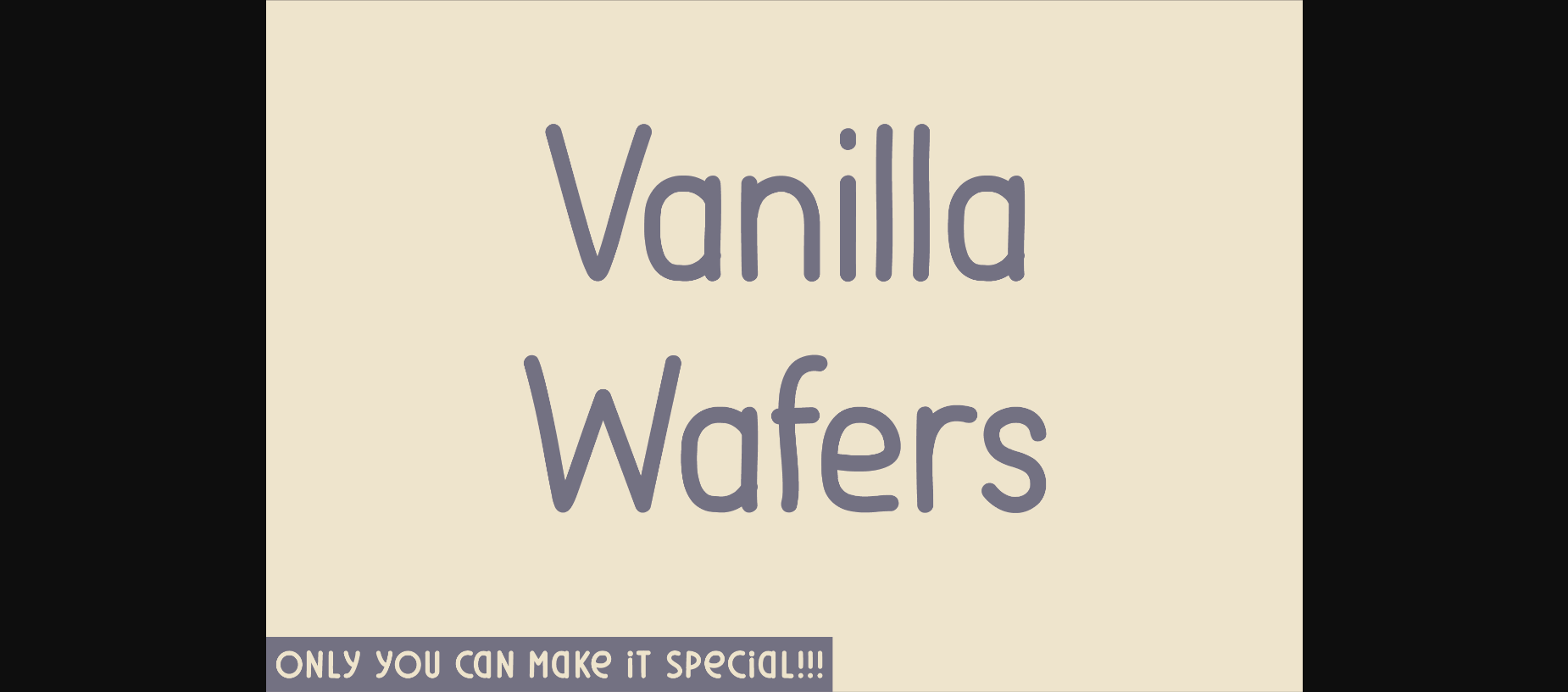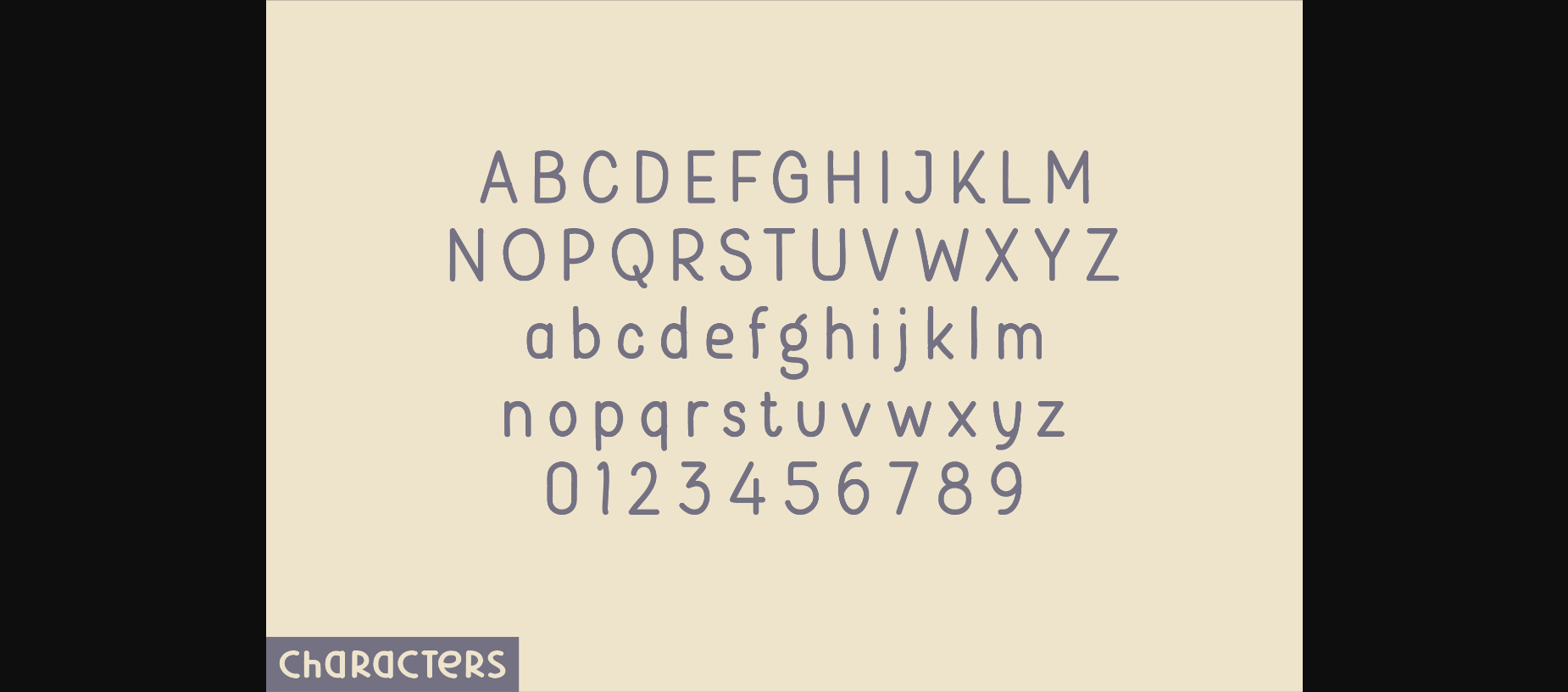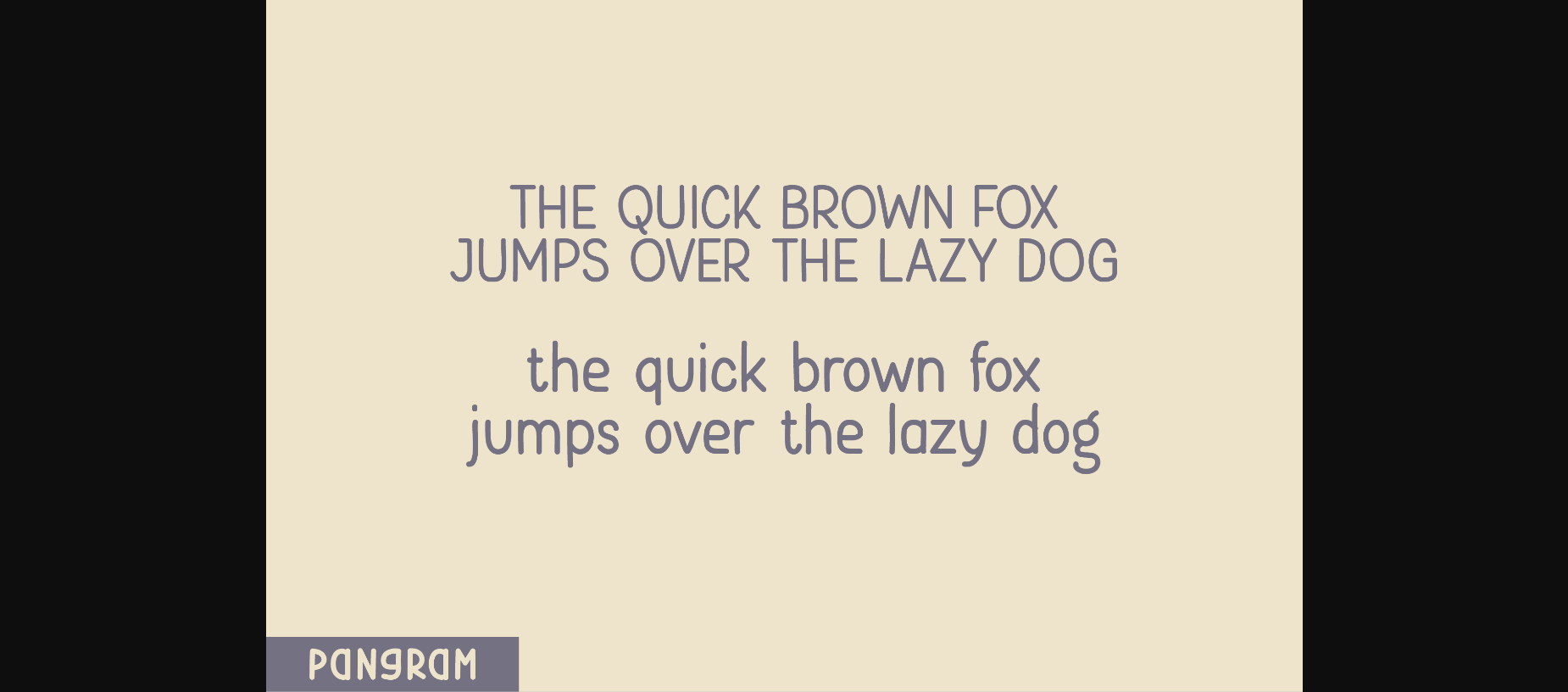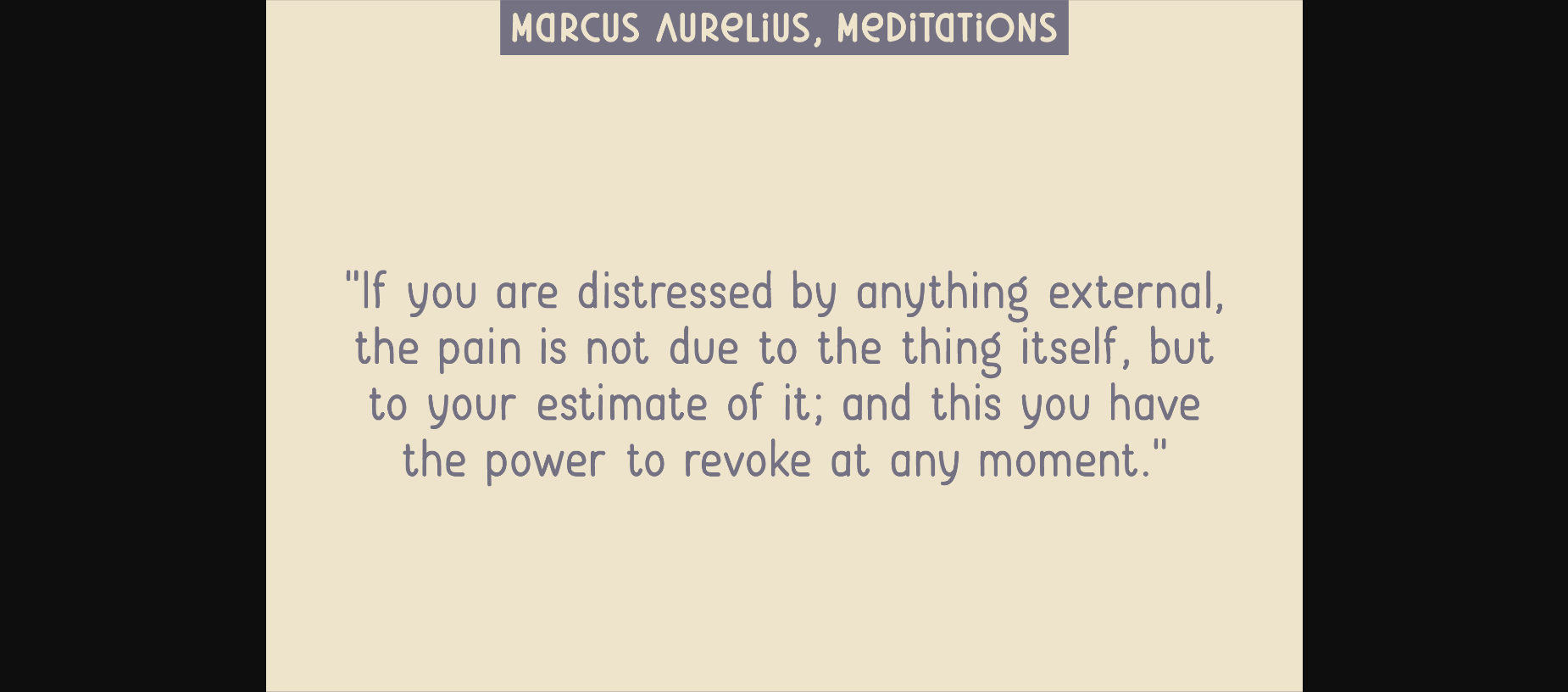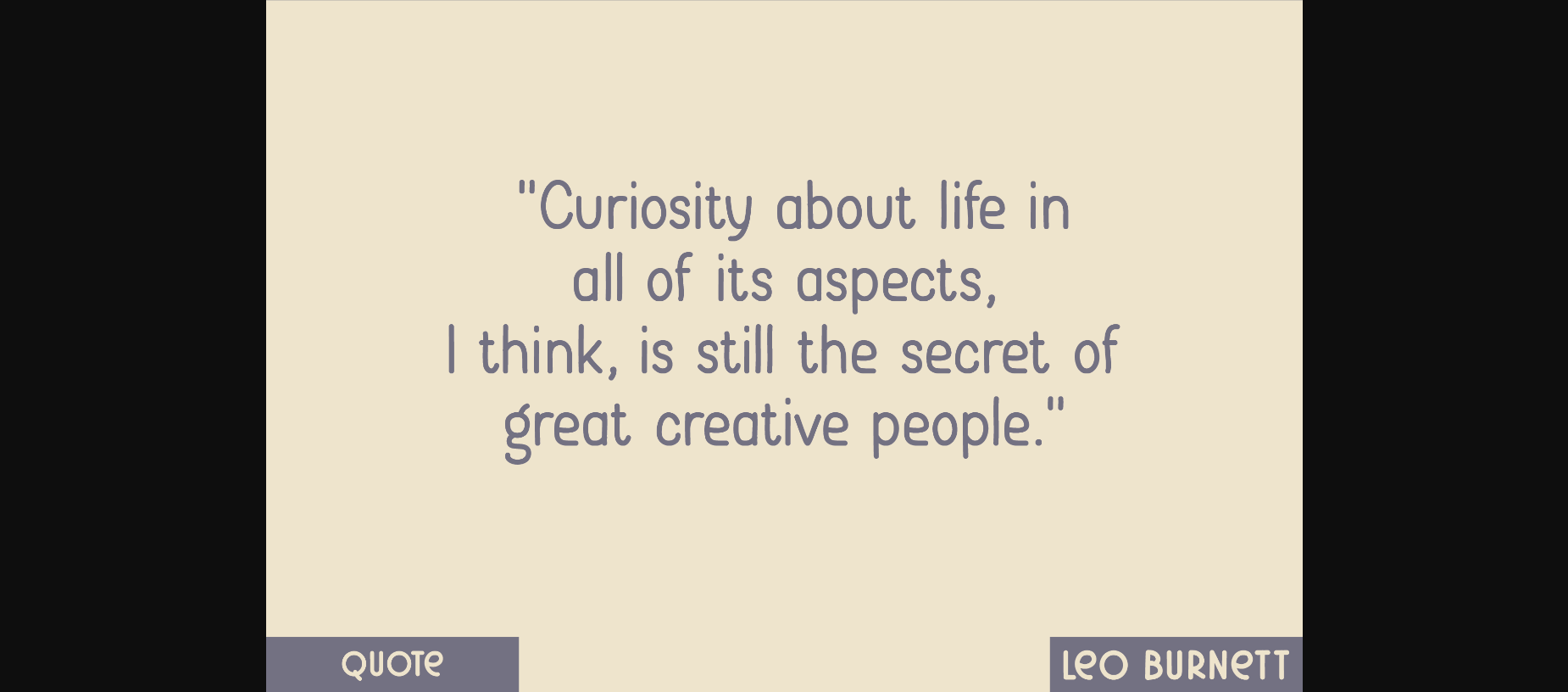
HomeSans Serif FontsVanilla Wafers Font Sans Serif Fonts Vanilla Wafers Font FacebookXPinterestWhatsApp 1 of 7 ... Vanilla Wafers Font Poster 2... Vanilla Wafers Font Poster 3... Vanilla Wafers Font Poster 4... Vanilla Wafers Font Poster 5... Vanilla Wafers Font Poster 6... Vanilla Wafers Font Poster 7... About Vanilla Wafers Font Vanilla Wafers is an elegant and modern sans serif font. This minimalist and clean vibe can easily apply to your favorite designs such as book covers, magazines, social media posts, invitations, and so much more! DOWNLOAD NOW People also explored Rookie Coach Alunta Font Welcome Pumpkin Font Adolin Font Darlington Font Male Light Blue Bella Canvas 3001 Mockup Martina Samantha Font Graficx Font Aortascarta Font 521 0 TagsVanilla Wafers Font Previous articleBanana Pudding FontNext articleRedbean Font LEAVE A REPLY Cancel reply Comment: Please enter your comment! Name:* Please enter your name here Email:* You have entered an incorrect email address! Please enter your email address here Website: Save my name, email, and website in this browser for the next time I comment. Personal Use Free Strings Personal Use Free Read more about this font Wordan Personal Use Free Read more about this font Baby Love Personal Use Free Read more about this font Geuli Personal Use Free Read more about this font BLOG Using Fonts in Digital Marketing: Tips to Strengthen Your Brand Identity In the realm of digital marketing, every visual element plays a crucial role in shaping a brand's identity, and fonts are no exception. The... Fonts That Capture the Spirit of New York City Transform Your Website: Elevate Your Typography with 7 Best Web Font Generators How to Cut Any Font on Cricut: Convert a Font to SVG (Free)